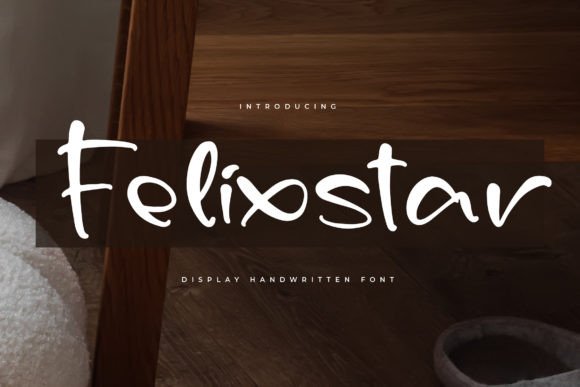
Felixstar Font: Elevate Your Designs with Elegance and Sophistication
In the world of typography, fonts play a crucial role in conveying the tone and personality of a brand or design. Among the numerous fonts available, Felixstar Font stands out as a stunning display handwritten font that exudes luxury and sophistication. Created by Integritype Studio, Felixstar Font is perfect for designers and businesses seeking to add a touch of elegance to their projects.
What is Felixstar Font?
Felixstar Font is a beautifully crafted display handwritten font that boasts a unique and distinctive style. Its elegant and refined appearance makes it an ideal choice for high-end designs that require a premium taste. The font’s intricate details and flowing lines evoke a sense of luxury, sophistication, and creativity.
Endless Design Possibilities with Felixstar Font
Felixstar Font is incredibly versatile and can be used in a wide range of design projects, including:
- Logos and branding projects: Create a lasting impression with a custom logo that showcases your brand’s personality and values.
- Homewares designs: Add a touch of elegance to your home decor designs, such as stationery, wall art, and textiles.
- Product packaging: Elevate your product packaging with a sophisticated font that reflects your brand’s luxury appeal.
- Mugs and ceramics: Create stunning designs for mugs, plates, and other ceramics that make perfect gifts or personal items.
- Quotes and posters: Add a touch of inspiration to your quotes and posters with a beautiful font that grabs attention.
- Shopping bags and packaging: Create eye-catching designs for shopping bags and packaging that reflect your brand’s style and personality.
- T-shirts and apparel: Design stunning apparel with a font that adds a touch of sophistication and elegance.
- Book covers and stationery: Create beautiful book covers, journals, and stationery that showcase your creativity and style.
- Business cards and invitation cards: Make a lasting impression with custom business cards and invitation cards that reflect your brand’s luxury appeal.
- Greeting cards and labels: Add a touch of elegance to your greeting cards and labels with a beautiful font that conveys your message.
- Photography and watermarks: Use Felixstar Font to add a touch of sophistication to your photography and watermarks.
- Special events: Create stunning designs for special events, such as weddings, parties, and conferences, that reflect your brand’s style and personality.
Key Features of Felixstar Font
Felixstar Font boasts several key features that make it an ideal choice for designers and businesses:
- Unique and distinctive style: Felixstar Font has a one-of-a-kind design that sets it apart from other fonts.
- Elegant and refined appearance: The font’s intricate details and flowing lines evoke a sense of luxury and sophistication.
- High-quality design: Felixstar Font is designed with precision and attention to detail, ensuring a high-quality appearance in any design.
- Versatile: The font can be used in a wide range of design projects, from logos and branding to packaging and apparel.
- Easy to read: Despite its intricate details, Felixstar Font is easy to read and understand, making it perfect for designs that require a clear message.
Tips for Using Felixstar Font
To get the most out of Felixstar Font, follow these tips:
- Use it sparingly: Felixstar Font is a statement font, so use it sparingly to avoid overwhelming your design.
- Pair it with neutral fonts: Pair Felixstar Font with neutral fonts to create a balanced and harmonious design.
- Experiment with colors: Felixstar Font looks stunning in a range of colors, so experiment with different hues to find the perfect match for your design.
- Pay attention to spacing: Make sure to leave enough spacing between letters and words to ensure the font is easy to read.
Felixstar Font is a stunning display handwritten font that adds a touch of elegance and sophistication to any design. Its unique and distinctive style, combined with its versatility and high-quality design, make it an ideal choice for designers and businesses seeking to create luxury designs. With Felixstar Font, you can elevate your designs and create a lasting impression on your audience.